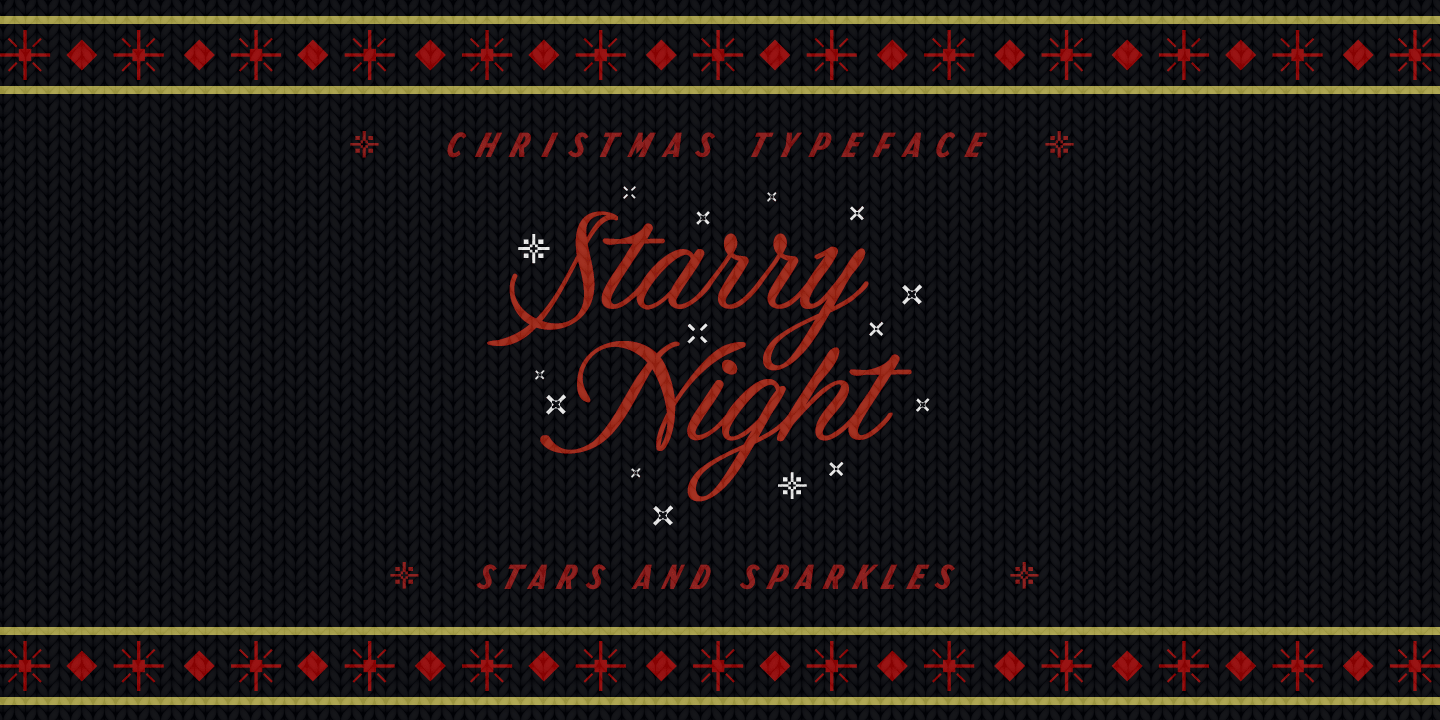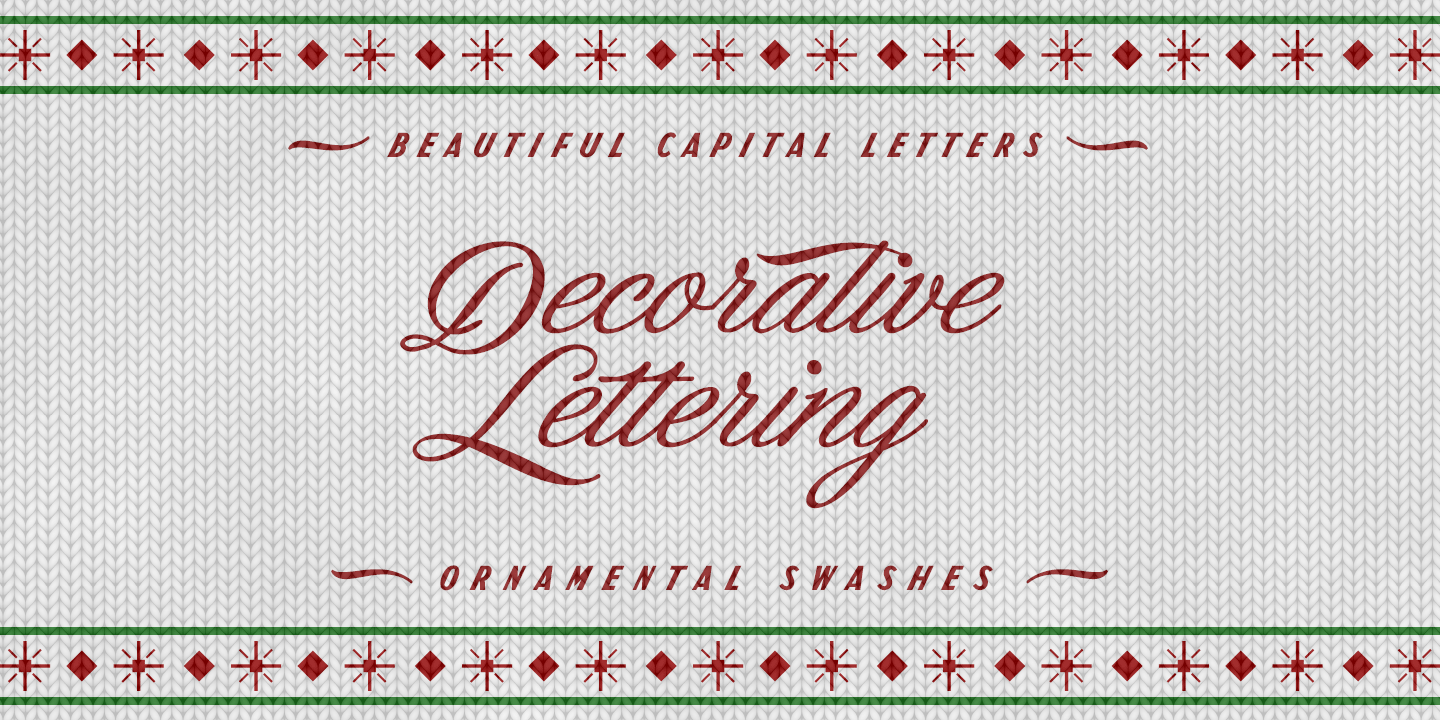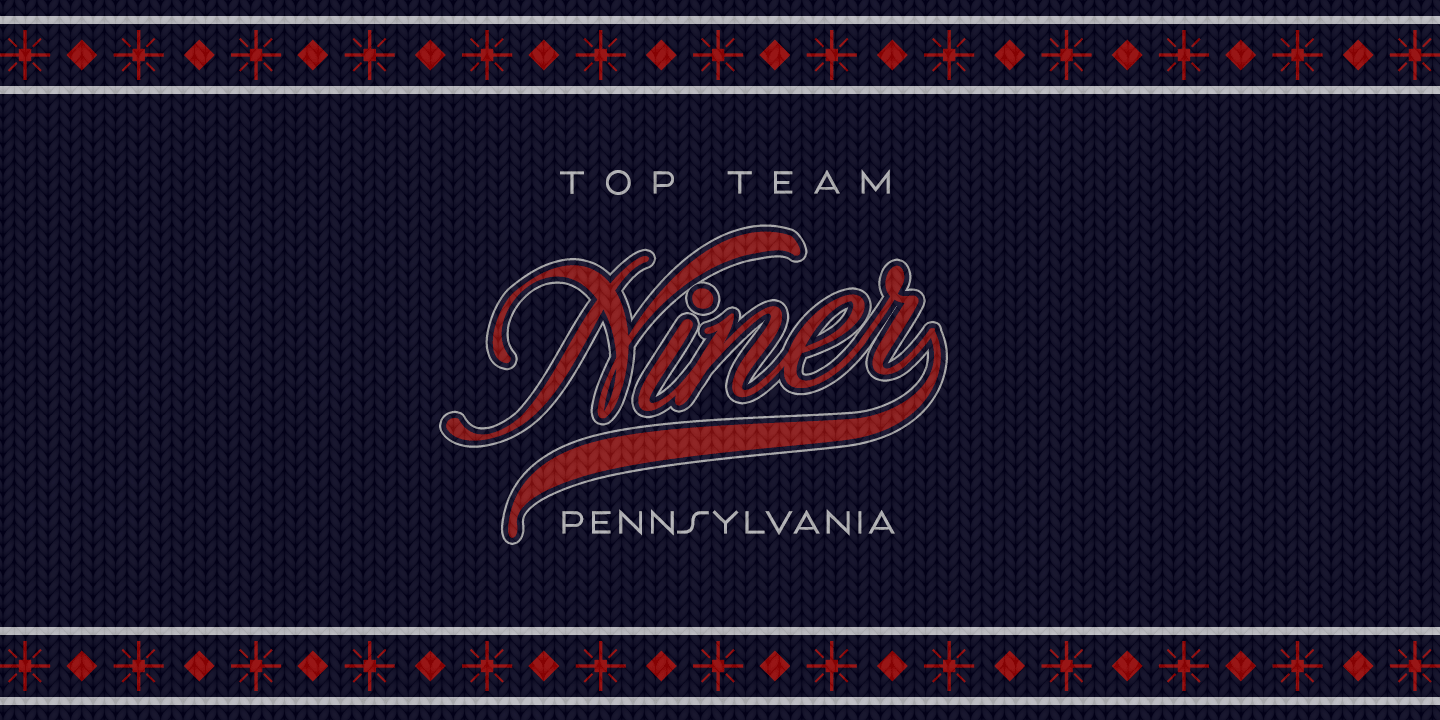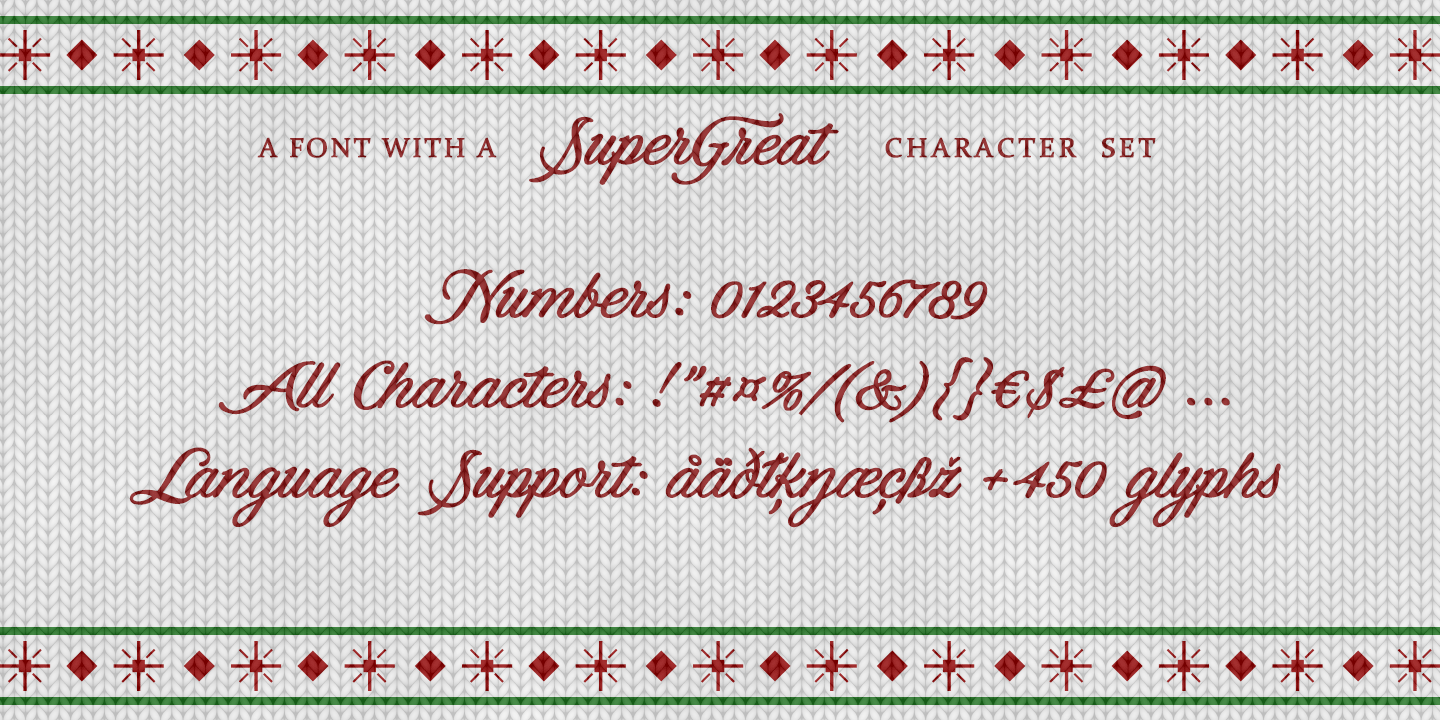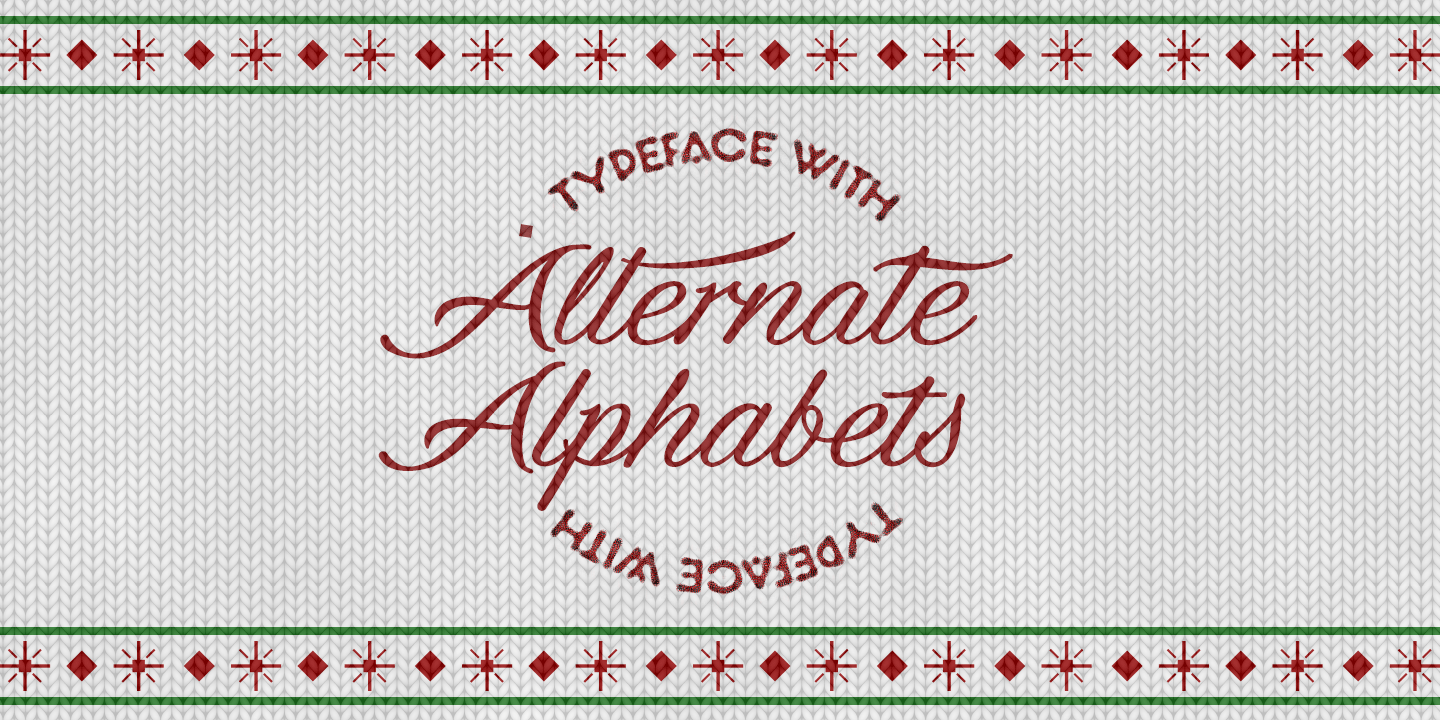
Fireplace
Fireplace is a decorative logotype font. Drawn and created by Mans Greback in 2020, this script typeface has a cozy and warm holiday vibe, bringing the thoughts to a Christmas Eve and winter season. It is a vintage sport lettering that has velocity, style and class.
Use + * ¤ × to create snowflakes, sparkles and stars. Use [ ] < > after any word to create a swash. Example: Snow]
For a longer swash, use several characters: Decorative>>>>
The font has extensive lingual support, covering all European Latin scripts. It contains all characters you’ll ever need, including all punctuation and numbers.